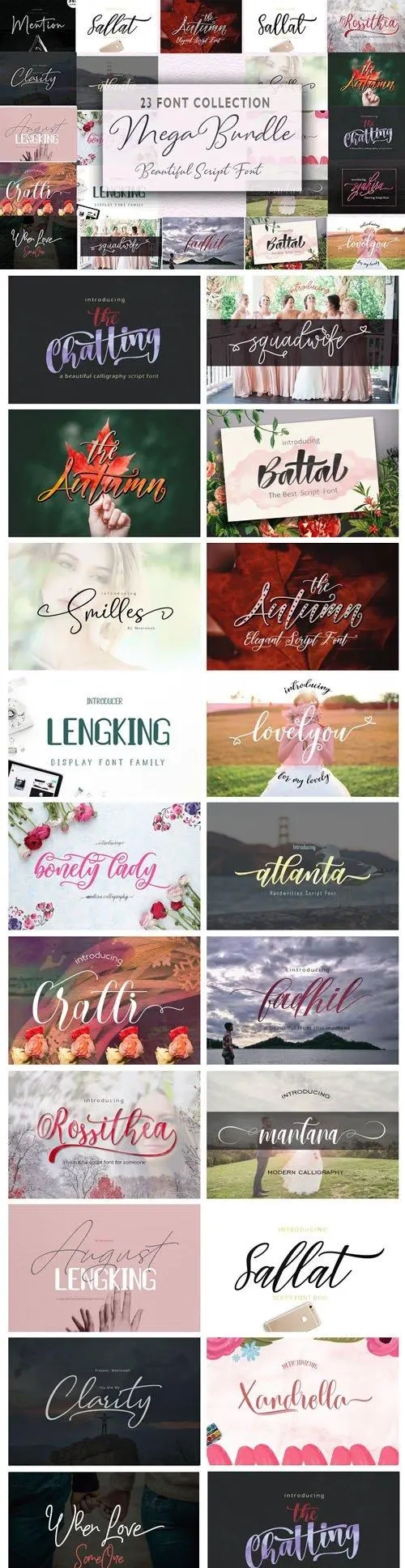
Mega Bundle – 23 Beautiful Script Fonts
Introducing the Mega Bundle – a collection of 23 beautifully crafted script fonts designed to elevate your creative projects. Each font in this bundle showcases unique characteristics, from elegant swashes to modern calligraphy styles, making them perfect for a variety of applications.
• 23 unique script font styles
• Variety of weights and styles
• Handwritten and calligraphic designs
• Numerous ligatures and stylistic alternates